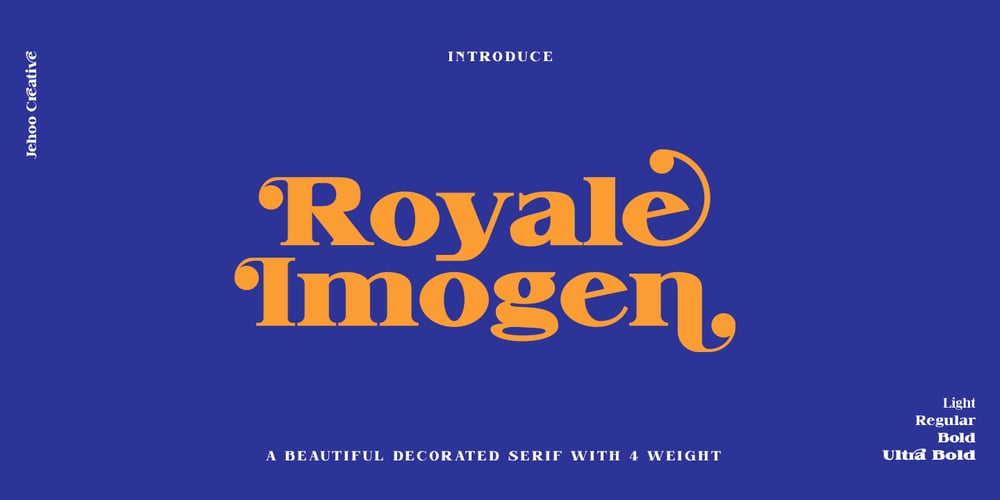
Royale Imogen Font Family was designed by Anwar Patihan and published by Jehoo Creative. Royale Imogen contains 4 styles and family package options. proudly presents Royale Imogen the bold romantic vintage font.Royale Imogen is an elegant and magical serif font. Fall in love with its incredibly versatile style and use it to create gorgeous wedding invitations, beautiful stationery art, eye-catching social media posts, Cover, Magazine, Sticker, Clothes, Quotes and more!Royale imogen has 4 different weights from Thin, Regular, Bold, and Ultra Bold. which makes this font very suitable for any design, apart from being given a different size Royale imogen is also equipped with beautiful alternates and ligatures which are very suitable for a design with a romantic feel, if you want a bold design you just need to turn off the opentype feature.Royale Imogen features: standard capital and lowercase alternate decorations beautiful ligature international character